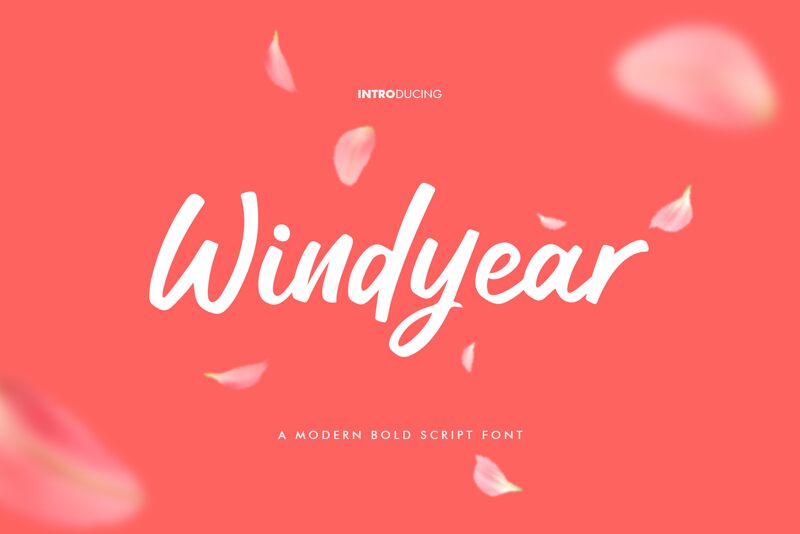
Windyear
Windyear, designed by Khurasan, embodies the fluidity and expressiveness of personal handwriting. Its elegant curves and gentle sweeps evoke a sense of casual sophistication, while its organic structure adds a touch of intimacy to any design. The font's aesthetic charm lies in its combination of playful freedom and stylistic finesse, making it an excellent choice for projects that require a human touch.
Ideal for invitations, branding, and editorial work, Windyear brings warmth to graphic expressions where a handcrafted impression is desired. Its versatile nature also lends itself beautifully to quotes, packaging designs, and social media graphics that aim to connect with audiences on a more personal level.